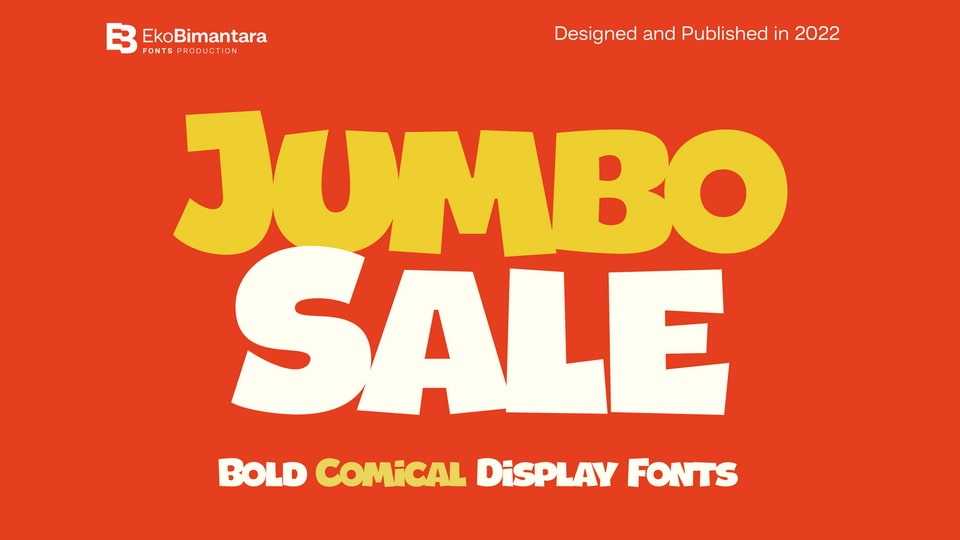
Download Jumbo Sale font, a bold and comical display typeface. Jumbo Sale font has fun, bold and loud characteristics. Fit for titles, brand, product packaging and big size display.